TypeFace Tuesday :: The Butler Bros Furniture Font
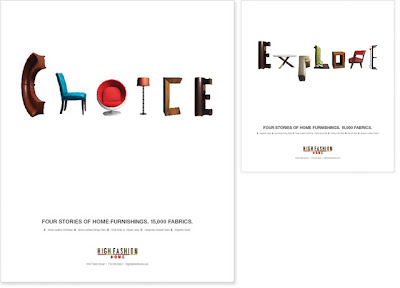
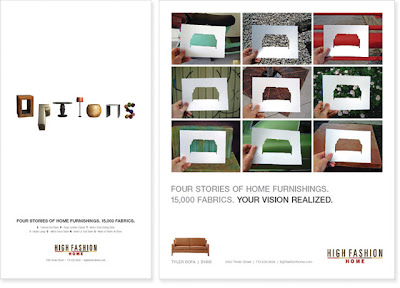
Another furniture font! This one is a little better executed, I think.
By The Butler Bros for High Fashion Home.